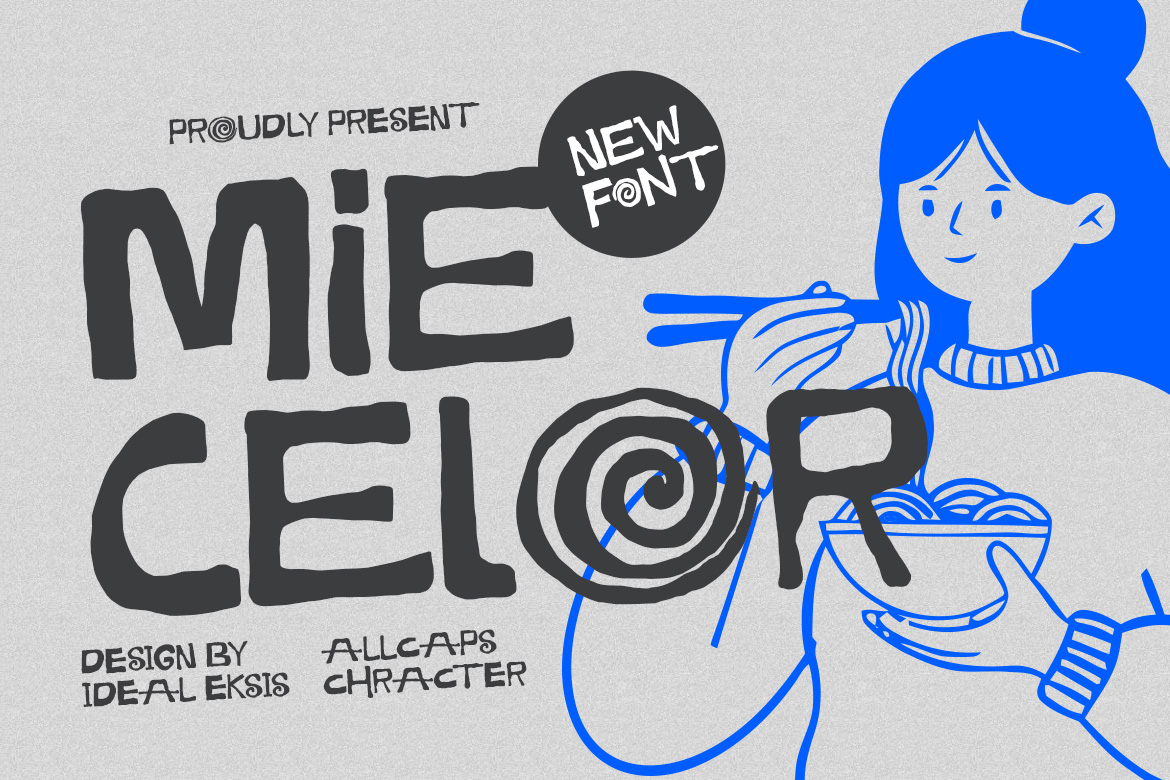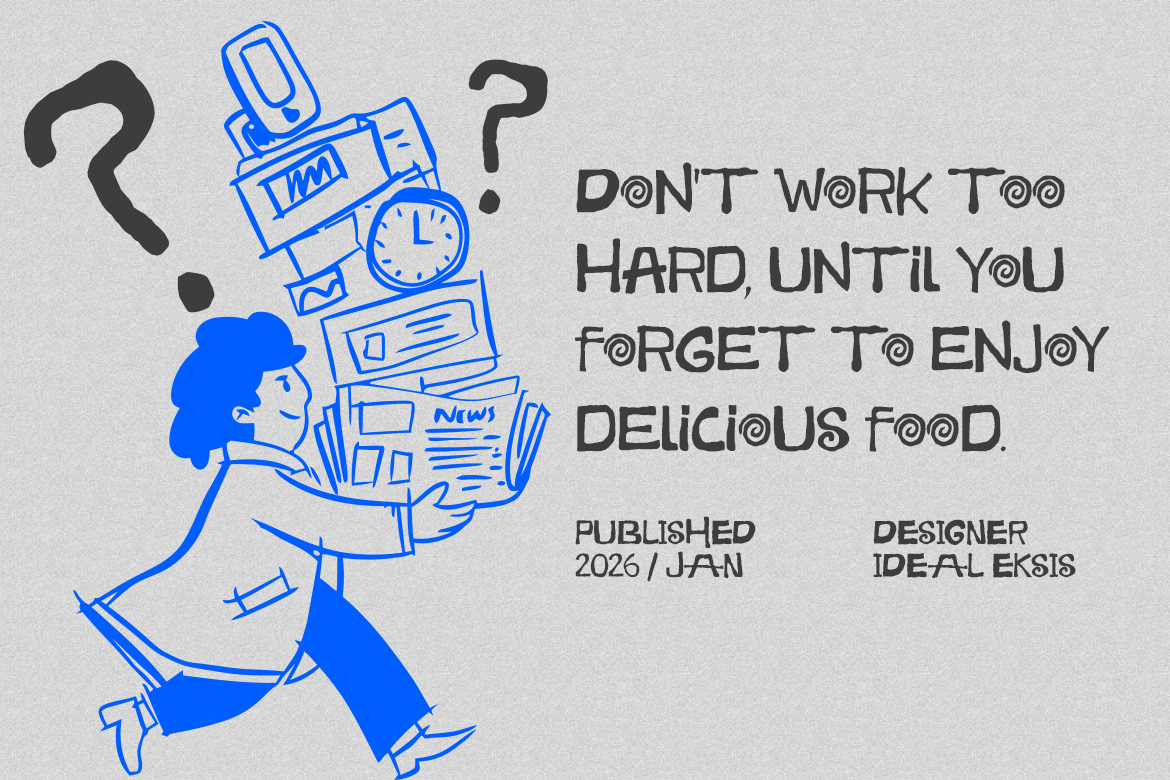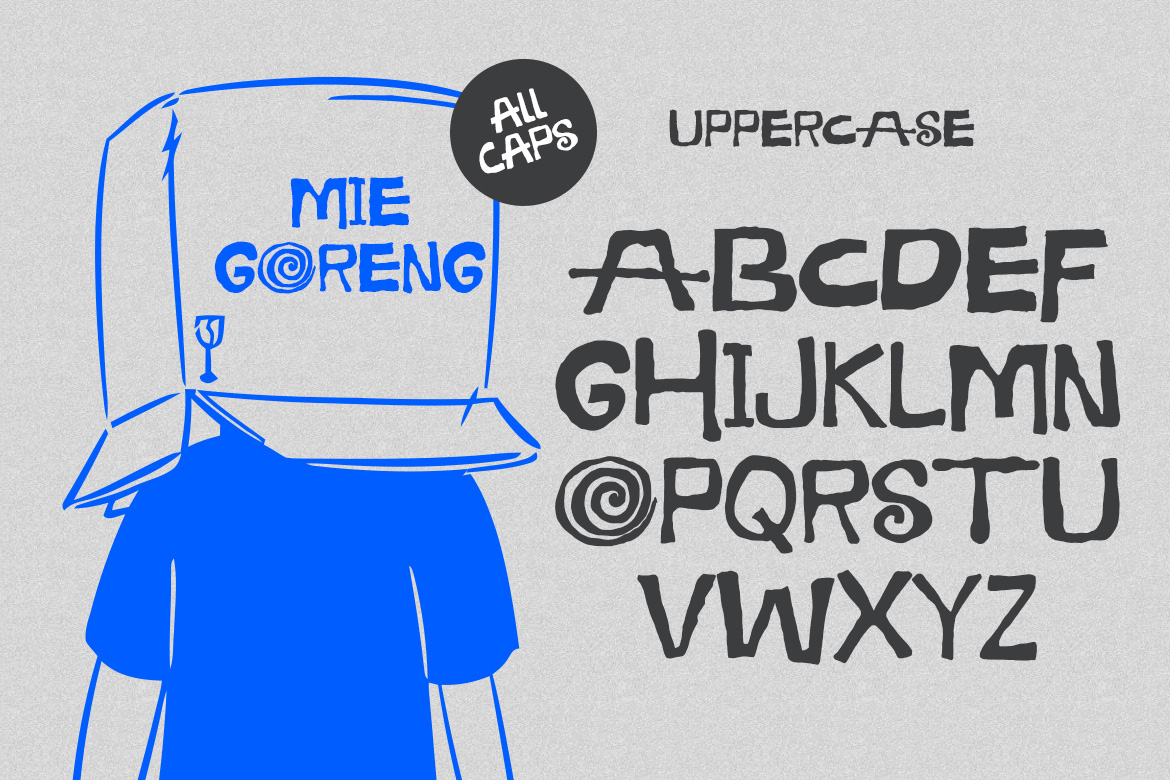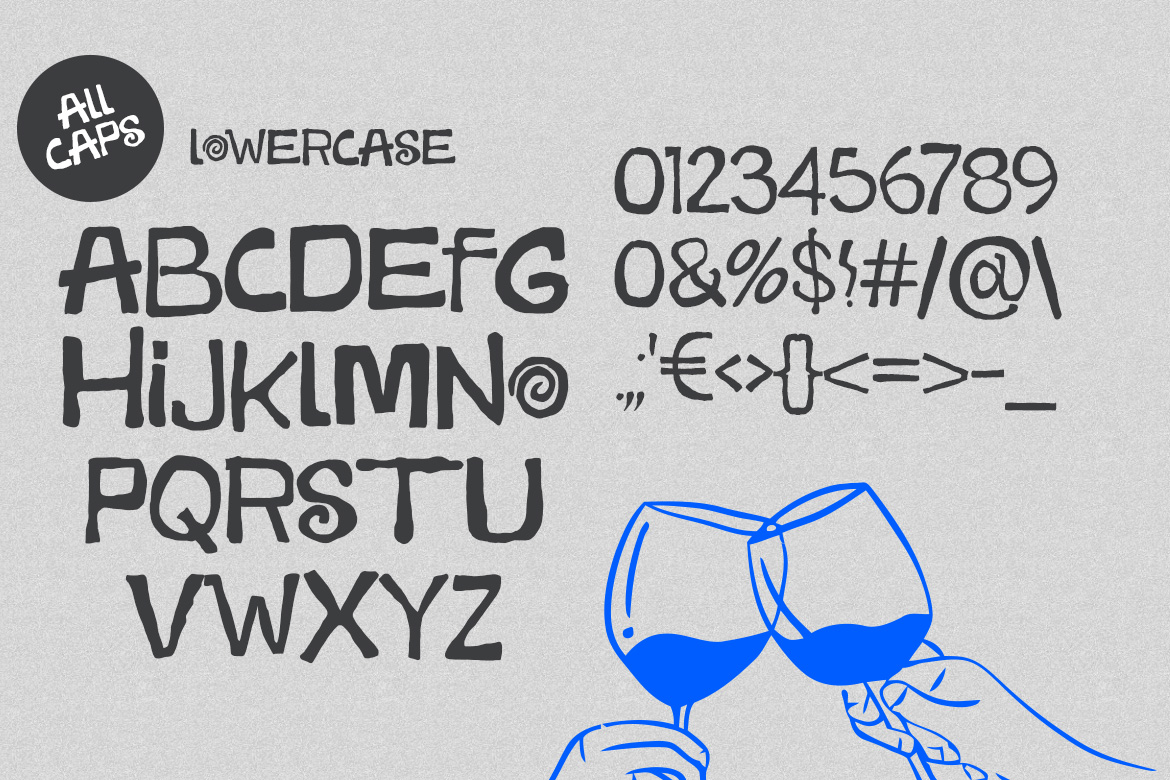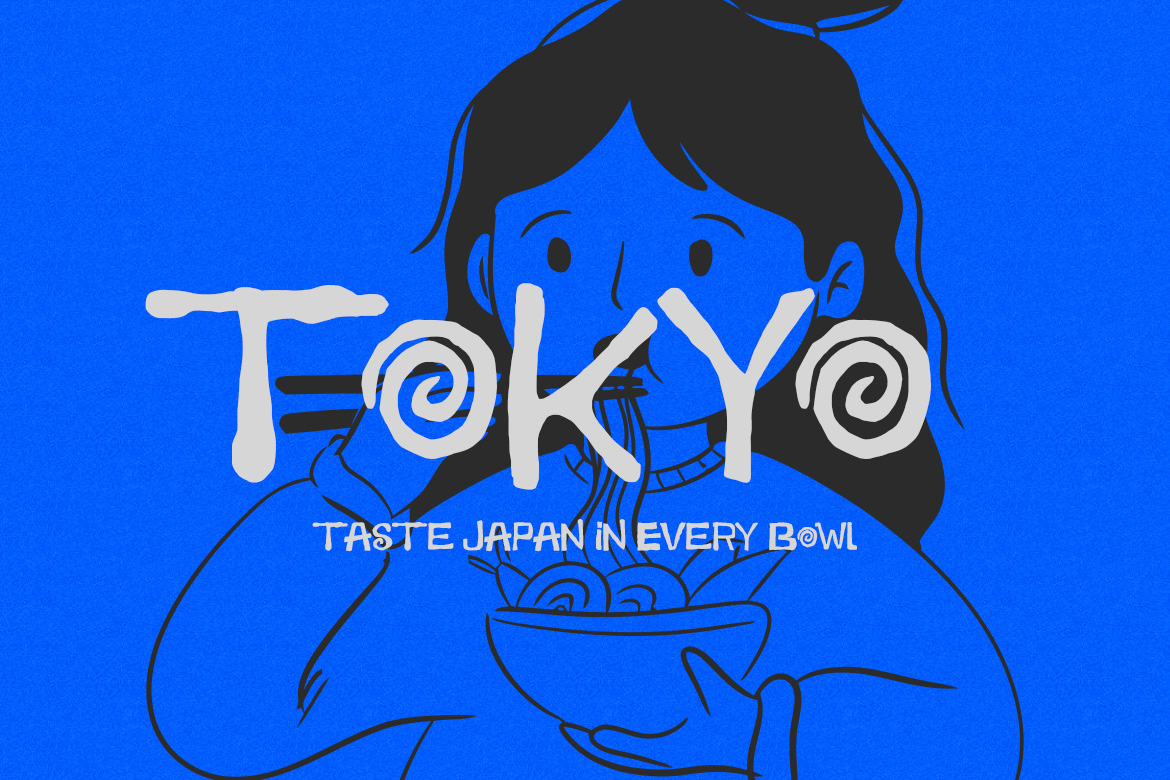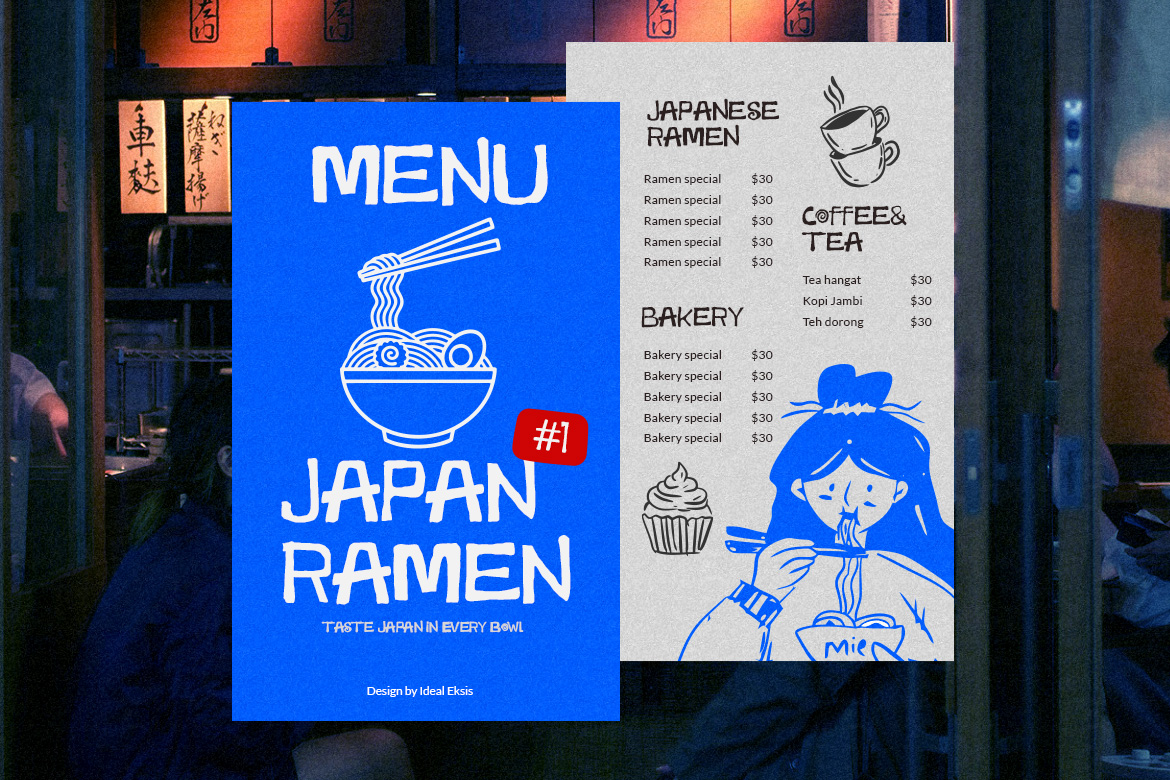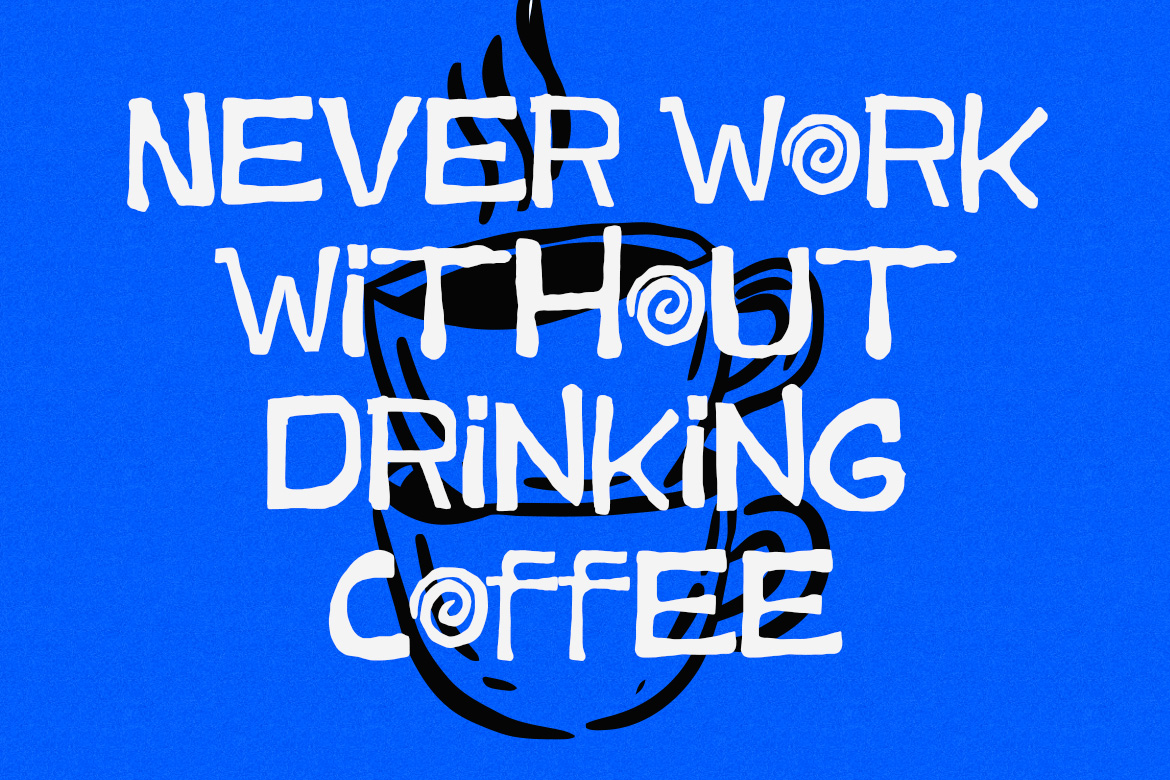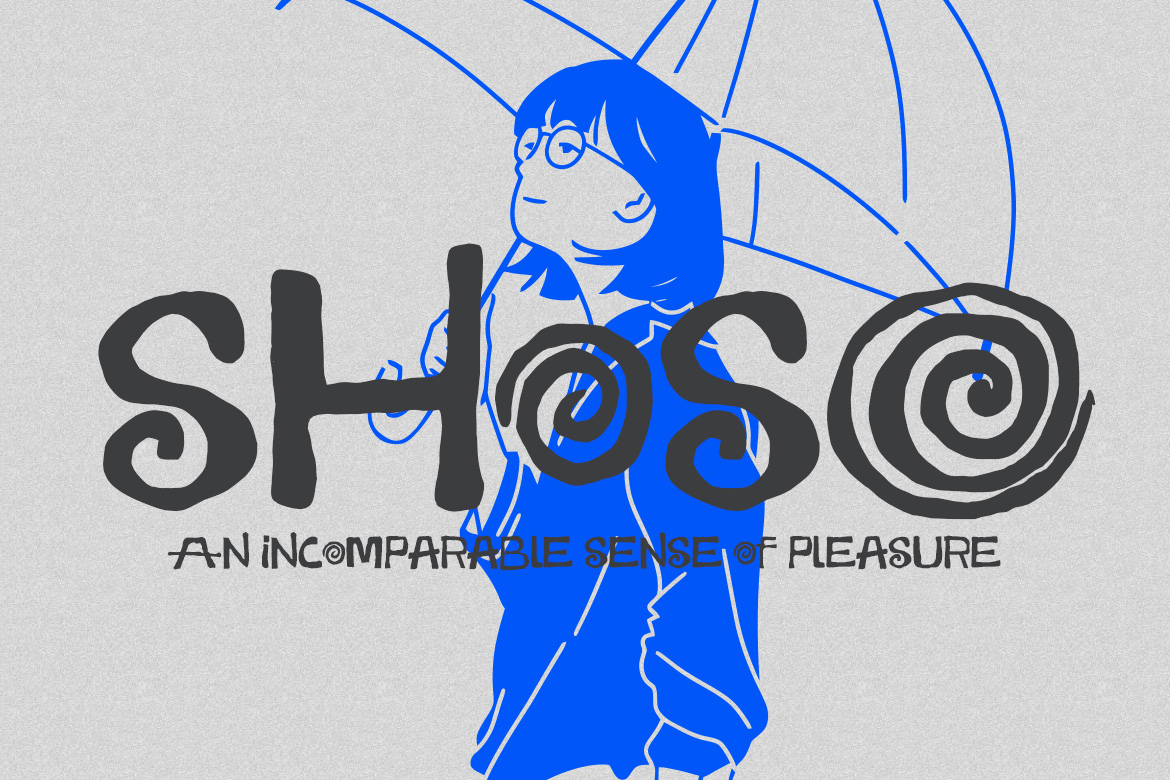
Mie Celor
This font features bold, hand-drawn letterforms with a distinctively chunky and irregular weight. The strokes are thick and expressive, characterized by uneven edges that suggest a marker or brush application. In Package : OTF TTF WOFF WOFF2 Feature : Uppercase (All Caps) Numerals Punctuation Easy To Install PERFECT FOR Bakery and café branding Food and beverage logos Restaurant menus and signage Coffee shop and donut shop designs Food packaging and labels Social media food promotions Kitchen-themed posters and prints Culinary blogs and recipe graphics